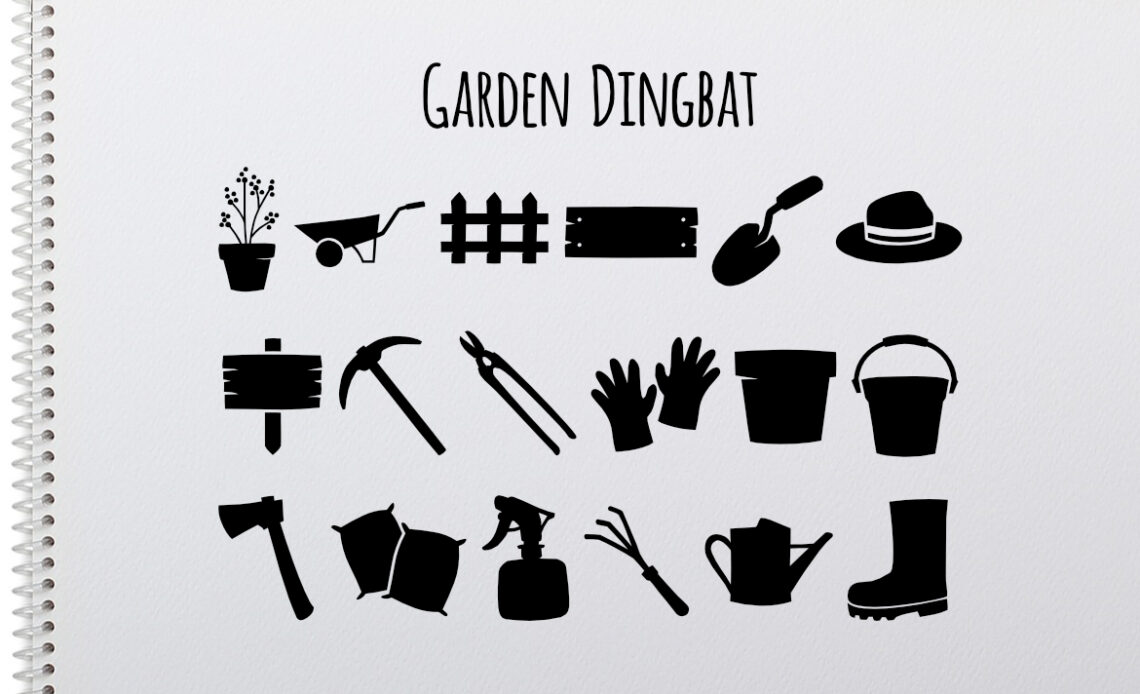
Are you tired of boring, repetitive fonts that fail to capture the essence of your creativity? Unleash your imagination with Garden Dingbat Font, a whimsical and enchanting dingbat set designed to transform your designs into captivating masterpieces.
Picture a world where every stroke of your creative brush is imbued with charm and delight. Garden Dingbat Font is your passport to this enchanting realm, where intricate dingbats dance across your designs, adding a touch of whimsy and wonder. These enchanting symbols are meticulously crafted to anchor your creations in stunning design assets, elevating your work to new heights of visual appeal.
With Garden Dingbat Font, you'll never be short of inspiration. Its vast library of adorable dingbats offers endless possibilities, empowering you to express your unique style and capture the hearts of your audience. Whether you're designing for print or digital, Garden Dingbat Font will infuse your creations with a touch of magic, leaving an unforgettable impression on all who behold it.
Join the creative revolution and embrace the power of Garden Dingbat Font. Let your imagination soar as you explore the boundless possibilities of this enchanting font set. Each dingbat is a tiny work of art, designed to add a touch of whimsy and enchantment to your designs.
Don't settle for ordinary fonts that blend into the background. Choose Garden Dingbat Font and watch your designs blossom into stunning, eye-catching masterpieces. Let the magic of dingbats ignite your creativity and transport your audience to a world of wonder and delight.